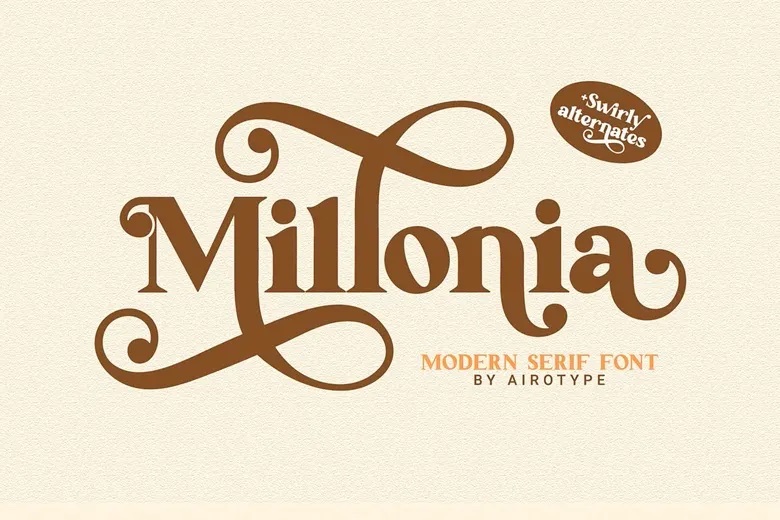
Millonia Font
Millonia is an elegant and modern serif typeface that looks nice and stylish. It had both a modern and old-fashioned feel to it. Millonia has extra glyphs to help crafters have more simple letters and shapes to use when making designs. Swirly extra glyphs will help the font look nice and stylish.
Millonia is a great font you can use for all sorts of projects, whether you want something modern or have a retro look, for making websites, logos, crafting, making stickers, putting quotes, wedding invitations, and lots of other things too.
Millonia Serif Font